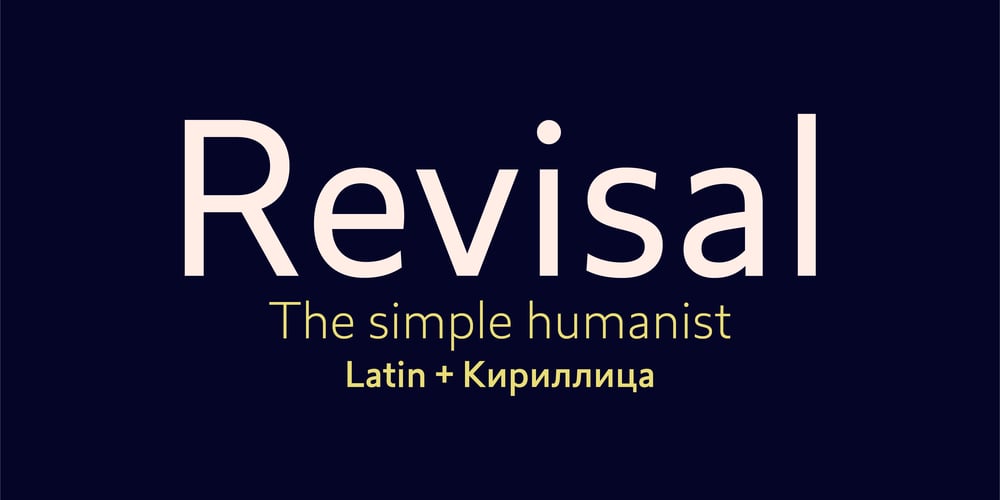
Revisal
Revisal font
Revisal Font Family was designed by Nico Inosanto and published by Type Dynamic. Revisal contains 14 styles and family package options. Revisal is a humanist sans family. Open forms are very useful for signage. The Revisal family includes 7 weights, from Hairline to Black, with their corresponding italics. Each font includes OpenType Features such as Stylistic Alternates, Proportional Figure, Tabular Figures, Numerator, Superscript, Denominators, Scientific Inferiors, Subscript, Ordinals and Fractions.Revisal family supports Latin and Cyrillic, all these languages are covered:Latin language support:Afar, Afrikaans, Albanian, Asturian, Azeri, Basque, Bosnian, Breton, Bulgarian, Catalan, Cornish, Corsican, Croatian, Czech, Danish, Dutch, English, Esperanto, Estonian, Faroese, Filipino, Finnish, Flemish, French, Frisian, Friulian, Gaelic, Galician, German, Greenlandic, Hungarian, Icelandic, Indonesian, Irish, Italian, Kurdish, Latin, Latvian, Lithuanian, Luxembourgish, Malagasy, Malay, Maltese, Maori, Moldavian, Norwegian, Occitan, Polish, Portuguese, Provençal, Romanian, Romansch, Saami, Samoan, Scots, Scottish, Serbian, Slovak, Slovenian, Spanish, Swahili, Swedish, Tagalog, Turkish, Walloon, Welsh, WolofCyrillic language support:Adyghe, Avar, Belarusian, Bulgarian, Buryat, Chechen, Erzya, Ingush, Kabardian, Kalmyk, Karachay-Balkar, Karakalpak, Kazakh, Komi, Kyrgyz, Lak, Macedonian, Moldovan, Mongol, Permyak, Russian, Rusyn, Serbian, Tatar, Tofa, Tuvan, Ukrainian, Uzbek